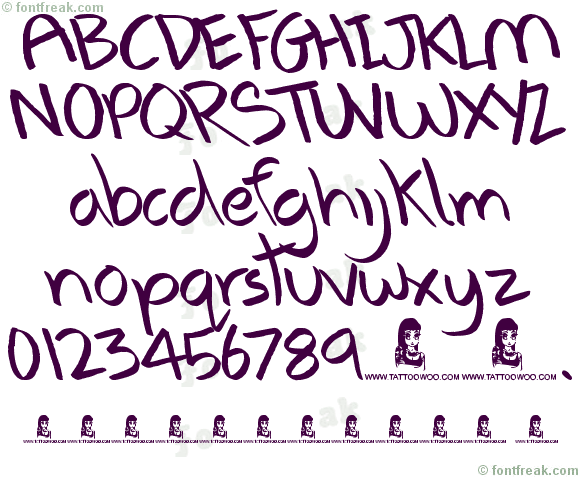
Anxiety Management
The Anxiety Management font, designed by Jonathan S. Harris, is a unique handwritten typeface that embodies a casual yet expressive style. This font falls into the decorative category, characterized by its playful strokes and organic flow. The stroke weight varies, providing an informal and approachable aesthetic that makes it suitable for a variety of creative projects. Its moderate spacing allows for easy readability, while the slightly irregular letterforms add a personal touch, reminiscent of handwritten notes, making it ideal for conveying warmth and authenticity.
The Anxiety Management font is versatile and can be utilized in numerous contexts. It shines in mental health awareness campaigns, where its friendly appearance can help ease the topic's gravity. Additionally, it is perfect for designing event flyers or promotional materials for wellness workshops, creating an inviting atmosphere. This font can also enhance social media graphics, making posts more relatable and engaging for audiences seeking support. Furthermore, it can be effectively used in branding for small businesses focused on self-care products, where a personal connection with customers is essential.
In conclusion, the Anxiety Management font stands out not only for its aesthetic appeal but also for its ability to convey comfort and approachability through its handwritten style. It serves as a reminder that thoughtful design can play a crucial role in communicating sensitive topics, making it an excellent choice for various applications.